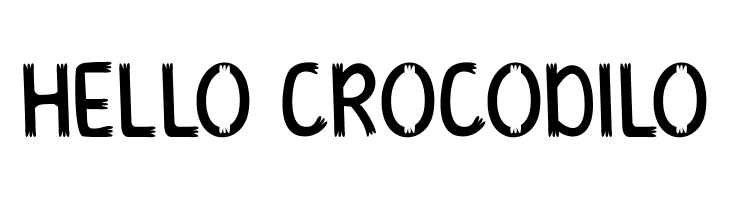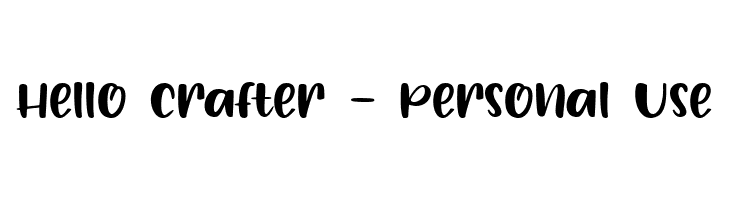
A playful, jagged font with a hand-drawn, crocodile scale-like texture.
A bold, dripping font with a playful and edgy aesthetic.
A bold, dripping style font with a unique, edgy appearance.
A playful, bold handwritten font with thick strokes and a casual style.
An elegant script font with flowing curves and decorative swashes.
A bold, dynamic script font with elegant, flowing letterforms.
A playful, handwritten font with smooth, flowing strokes and a whimsical charm.
A playful, bold handwritten font with rounded, casual letterforms.
A bold, brush-style italic font with dynamic strokes and a handwritten feel.
A bold, brush-style italic font with dynamic and expressive strokes.